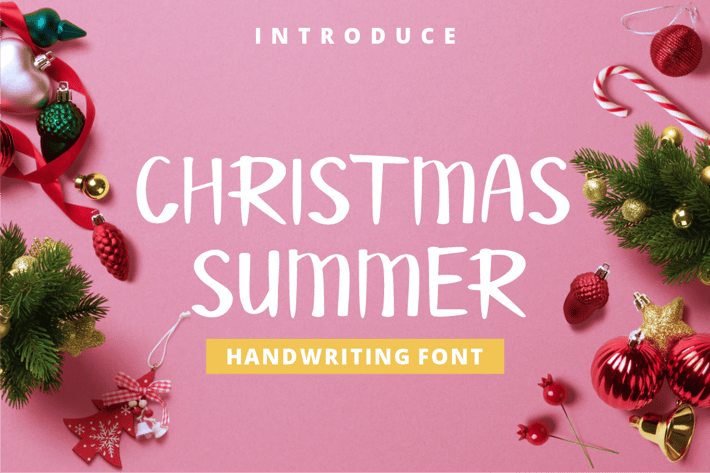
Christmas Summer Font
Bring a touch of whimsical, handcrafted charm to your holiday designs with Christmas Summer, a delightful handwritten font. Its playful, uneven strokes give it a genuine feel, as if written by hand, making it perfect for adding a personal touch to your projects.
Why Choose Christmas Summer?
+ Handwritten Charm: The font's unique, imperfect lines bring an authentic, cozy feel to any design.
+ Festive & Fun: Ideal for a wide range of festive projects, from Christmas cards and party invitations to holiday posters and product packaging.
+ Versatile: Its casual style isn't just for the holidays! Use it for summer-themed designs, social media graphics, branding, and more.
Whether you're creating a cozy holiday greeting or a fun summer party invite, Christmas Summer adds a touch of playful warmth and personality to your work.